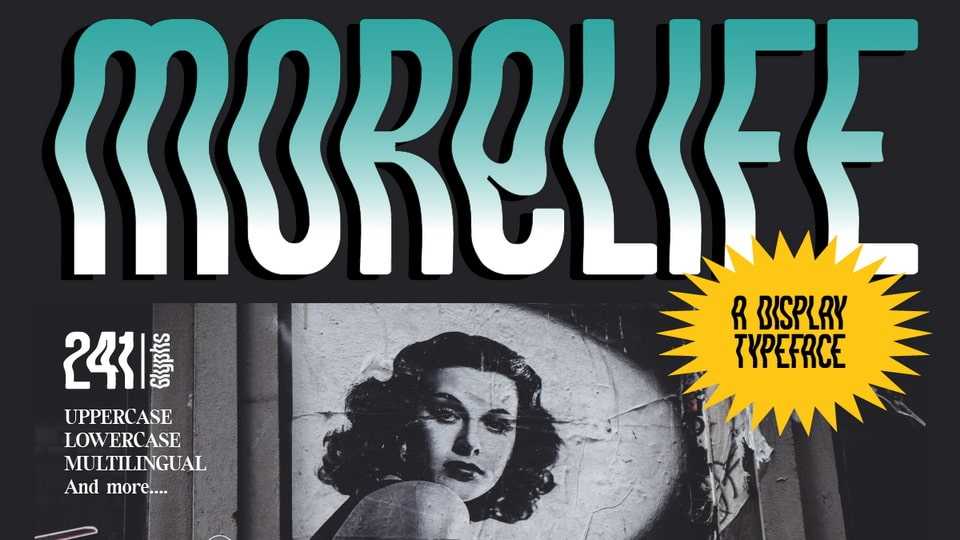
Download Morlife font, a strong and solid typeface with a unique form of the 90s era. Morlife font is perfect for event posters, magazine covers, hipster fashion brands, t-shirts, totes, quotes, or stylish text overlays onto any background image.